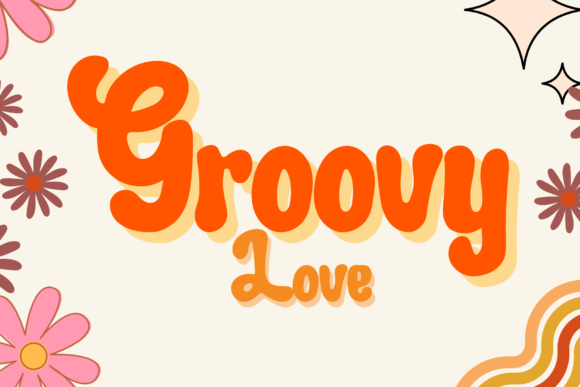
The Perfect Blend of Funky and Love
Do you remember the moment when a font choice sparks a design idea? It’s like a lightbulb moment – everything comes together, and you can’t wait to bring it to life. For me, that moment happened when I stumbled upon the Groovy Love Font. Its retro vibe instantly transported me to the psychedelic 60s and 70s, and I knew I had to incorporate it into my next project.
Groovy Love Font is a script display font that embodies the carefree spirit of a bygone era. Its flowing letters are perfect for designs that need a fun and playful touch. Whether you’re creating album covers, invitations, or posters, this font is sure to bring a smile to your audience’s face. As a designer, you’ll appreciate the versatility of Groovy Love Font, which can add a touch of nostalgia and whimsy to any design.
Groovy Love Font Key Features
- Font Family: Groovy Love Font is a unique, hand-drawn font designed for creative and romantic purposes.
- Unique Characteristics: Features a distinctive, cursive script with swashes and flourishes, adding a touch of elegance and whimsy to any design.
Groovy Love Font Review
Overall, I think the Groovy Love Font is a fun and playful addition to any design project. The unique blend of vintage and modern elements makes it stand out in a crowded font market.
- Distinctive, eye-catching style that’s perfect for catching attention.
- Highly customizable, with a range of weights and styles to choose from.
- Works well in both digital and print applications.
- Good legibility, even at small font sizes.
However, I do have a few concerns about the font’s limitations.
- Some characters may appear slightly uneven or inconsistent, which could be a problem for designers who value precision.
- Not ideal for use in formal or professional settings, as the playful style may come across as unprofessional.
- May require additional styling to work well in certain applications, such as body text or headings.
Overall, I think the Groovy Love Font is a great choice for designers who want to add a bit of whimsy and personality to their projects. While it may have some limitations, its unique style and high level of customization make it a versatile and effective tool for creatives.
For the best results, use the Groovy Love Font with bold or italic text to add emphasis.
The Groovy Love Font is perfect for:
Valentine’s Day cards and gifts.
Love-themed social media posts and graphics.
Alternative Fonts for Groovy Love Font
Fontin is a modern script font that can be used as an alternative to Groovy Love Font. It has a similar feel to a handwritten font but with a more polished and refined look. Use Fontin when you want to add a touch of elegance to your designs without looking too playful.
Fontin compares to Groovy Love Font in that it has a similar flowing feel, but it’s more versatile and can be used in a wider range of design applications.
Carolyna Pro is a high-end script font that can be used to create sophisticated and luxurious designs. It has a more dramatic flair compared to Groovy Love Font, making it perfect for use in branding and advertising materials.
Carolyna Pro compares to Groovy Love Font in that it has a similar level of sophistication, but it’s more dramatic and attention-grabbing.
Great Vibes is a modern script font that has a fun and lively feel to it. It’s perfect for use in designs that require a playful and energetic vibe. Use Great Vibes when you want to add a touch of whimsy to your designs.
Great Vibes compares to Groovy Love Font in that it has a similar level of playfulness, but it’s more energetic and attention-grabbing.